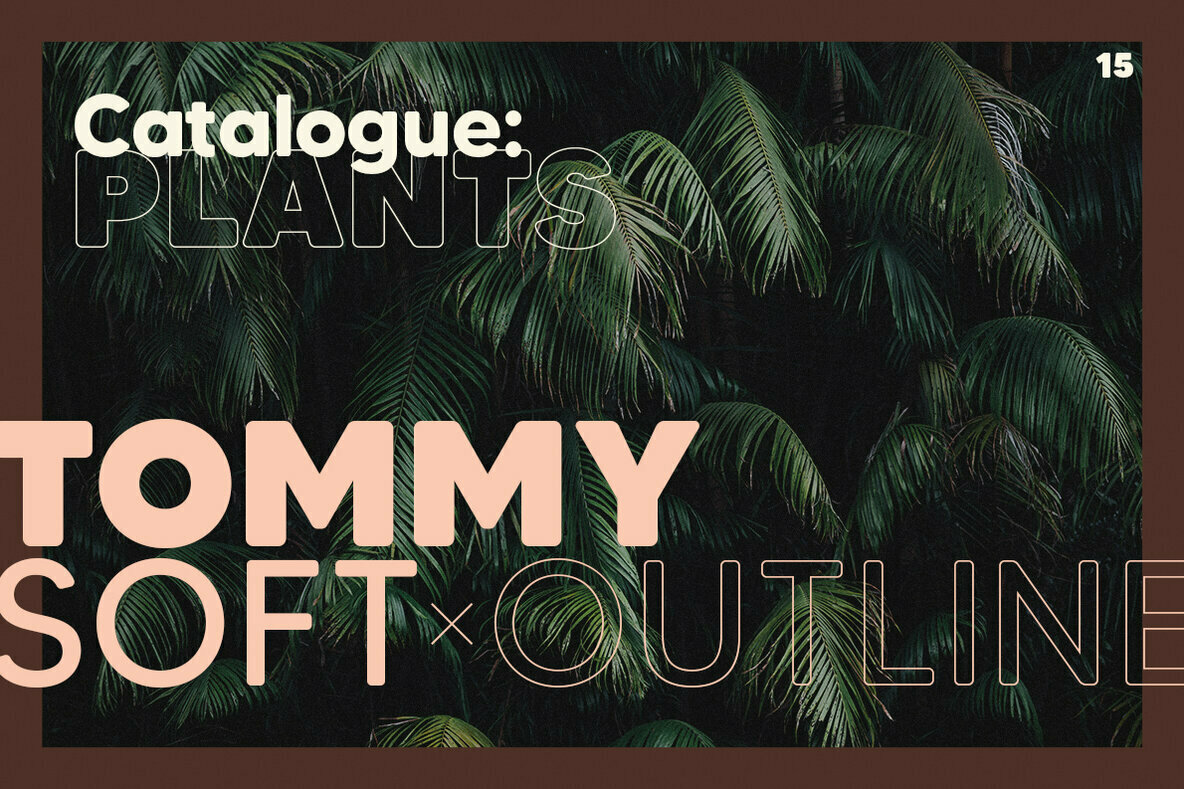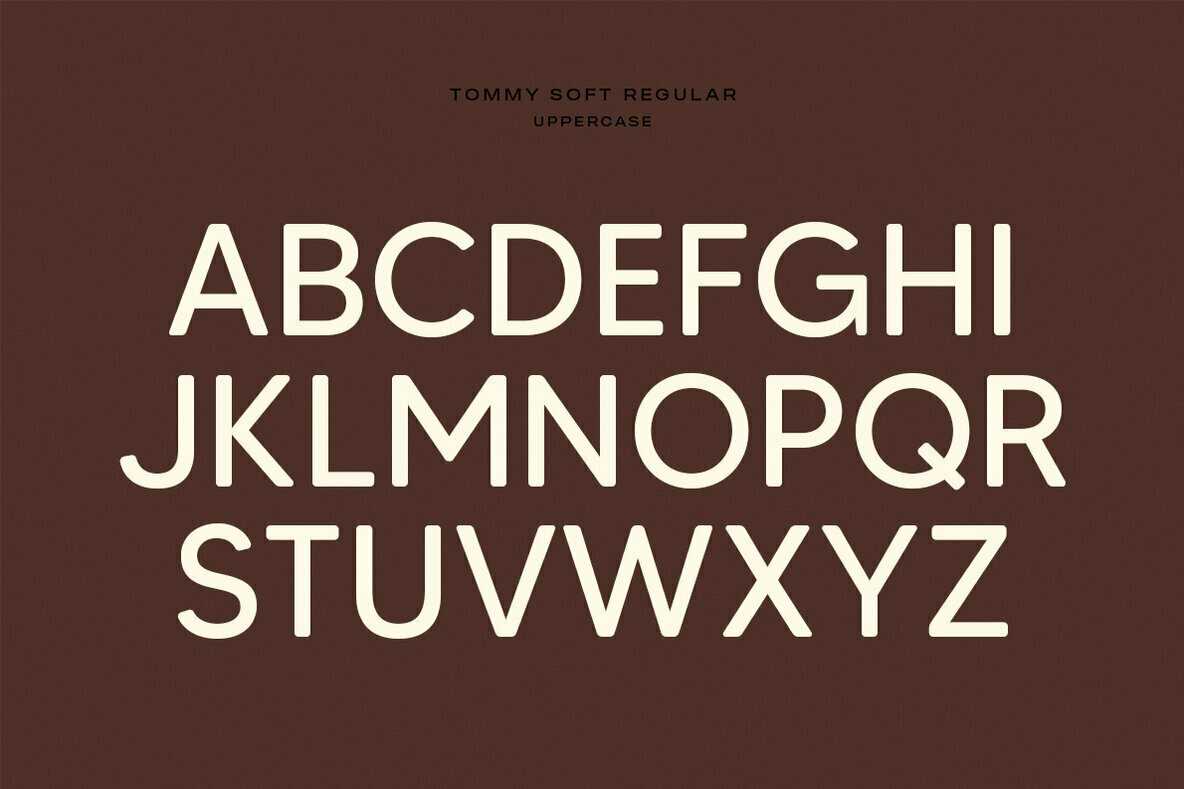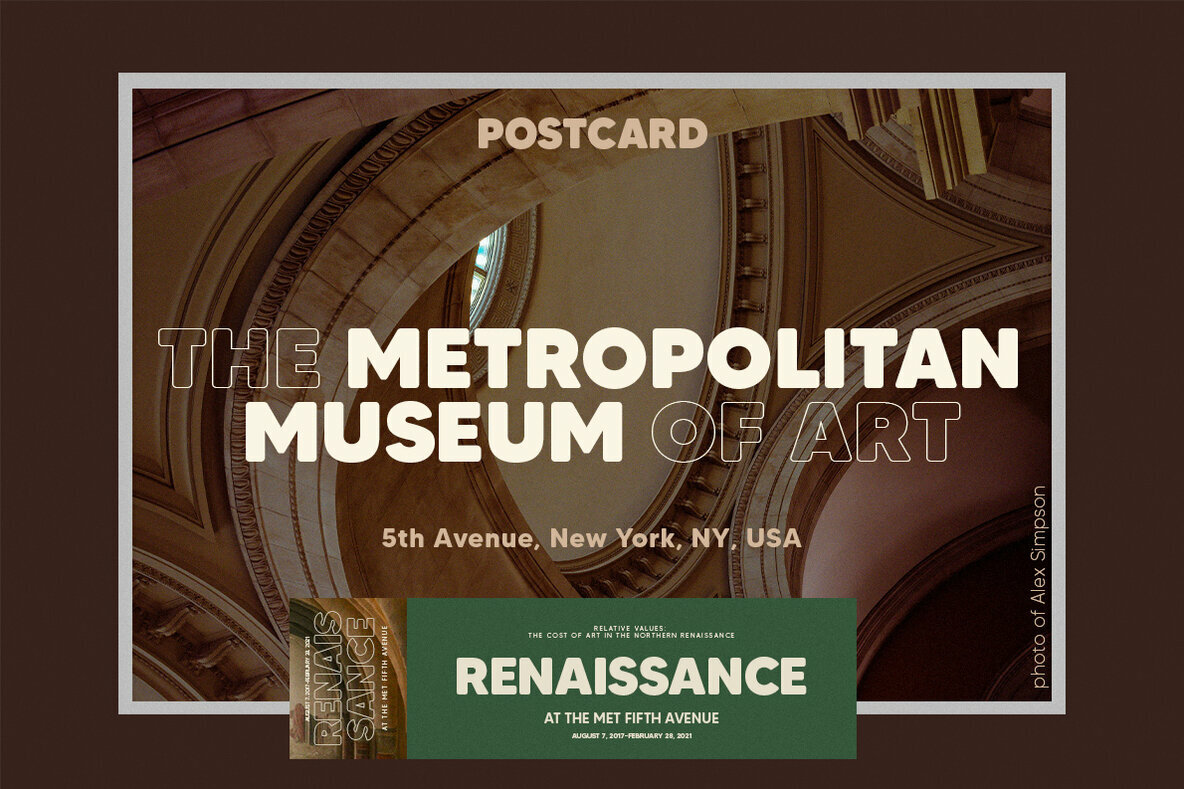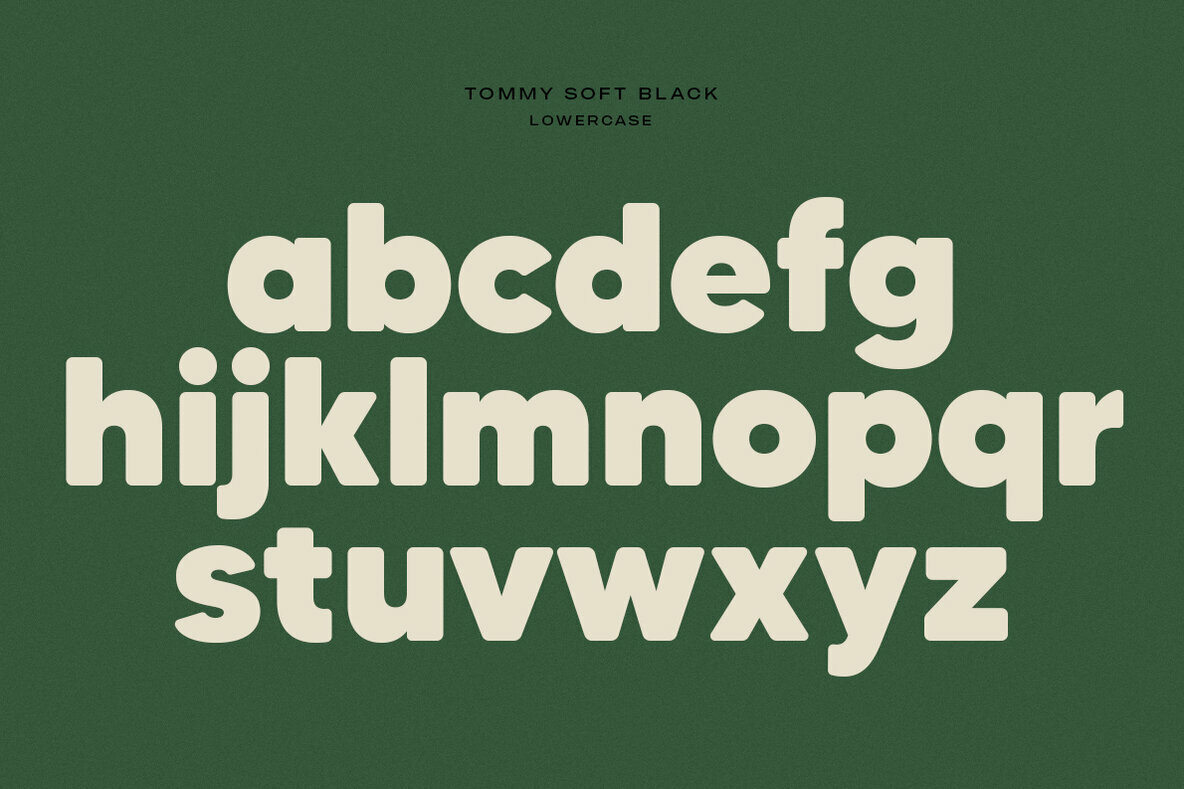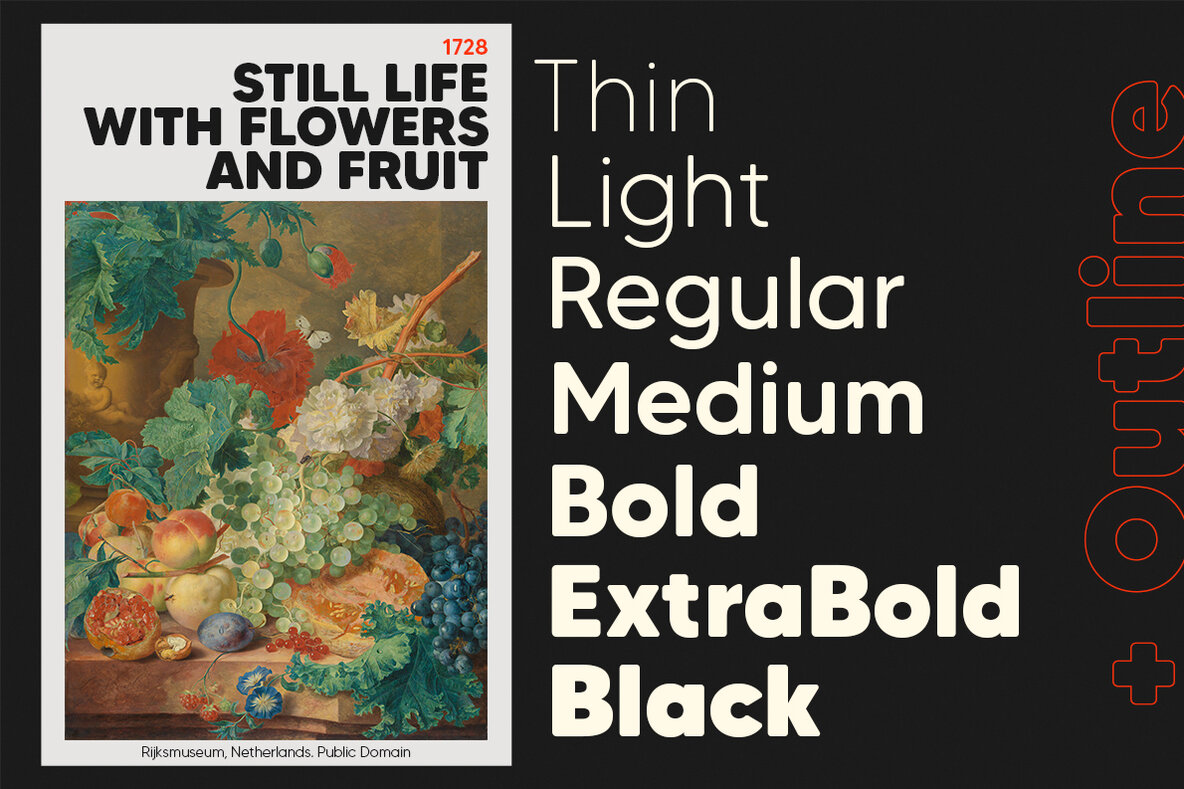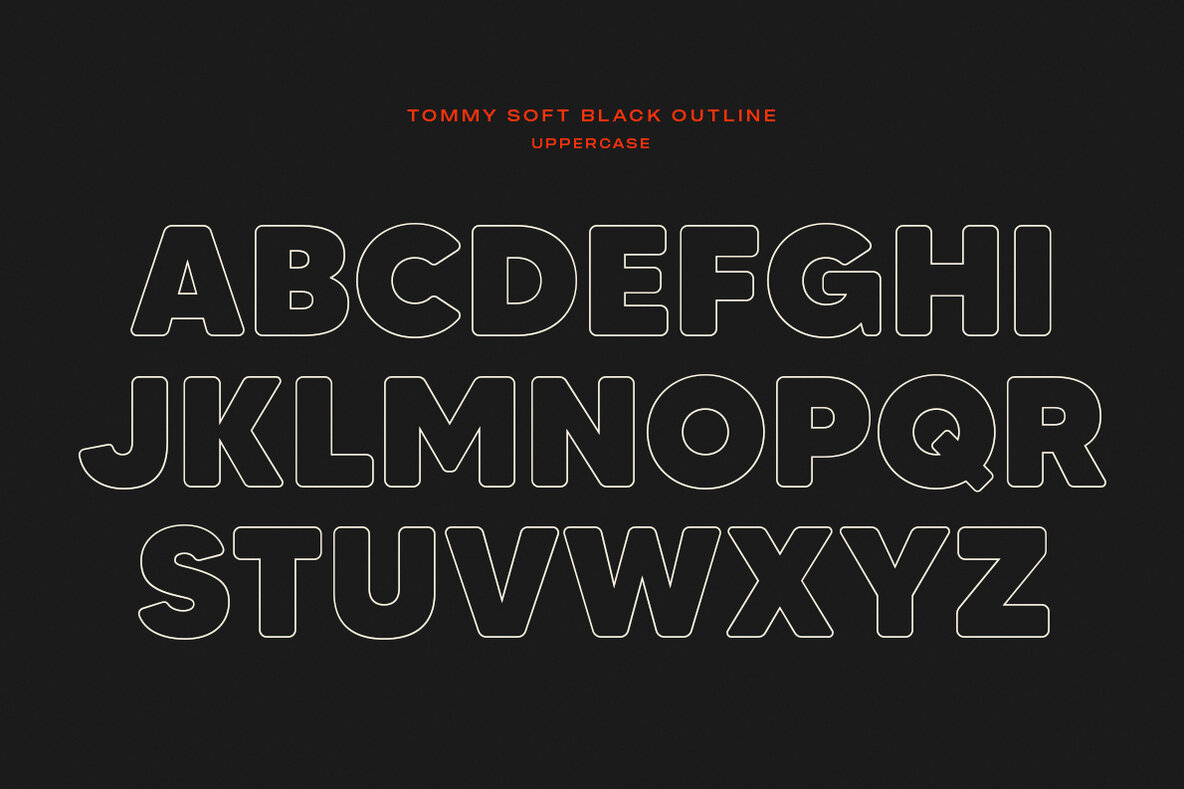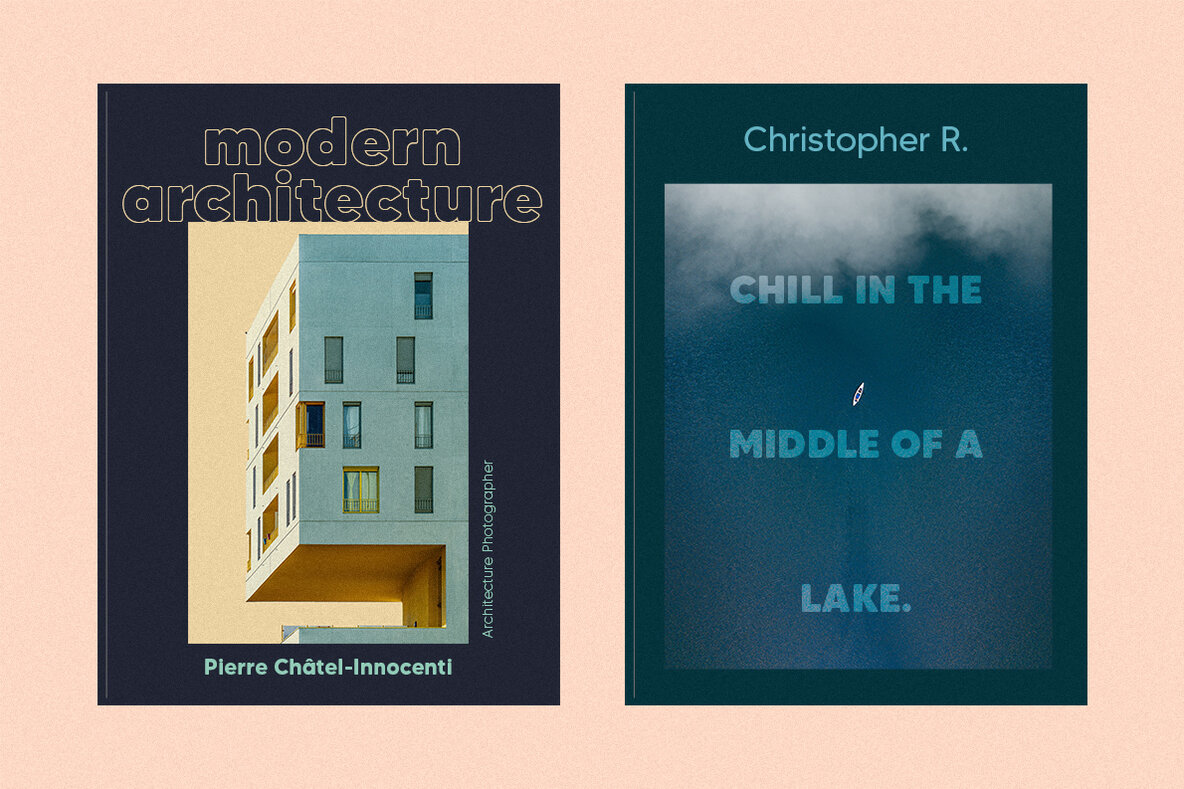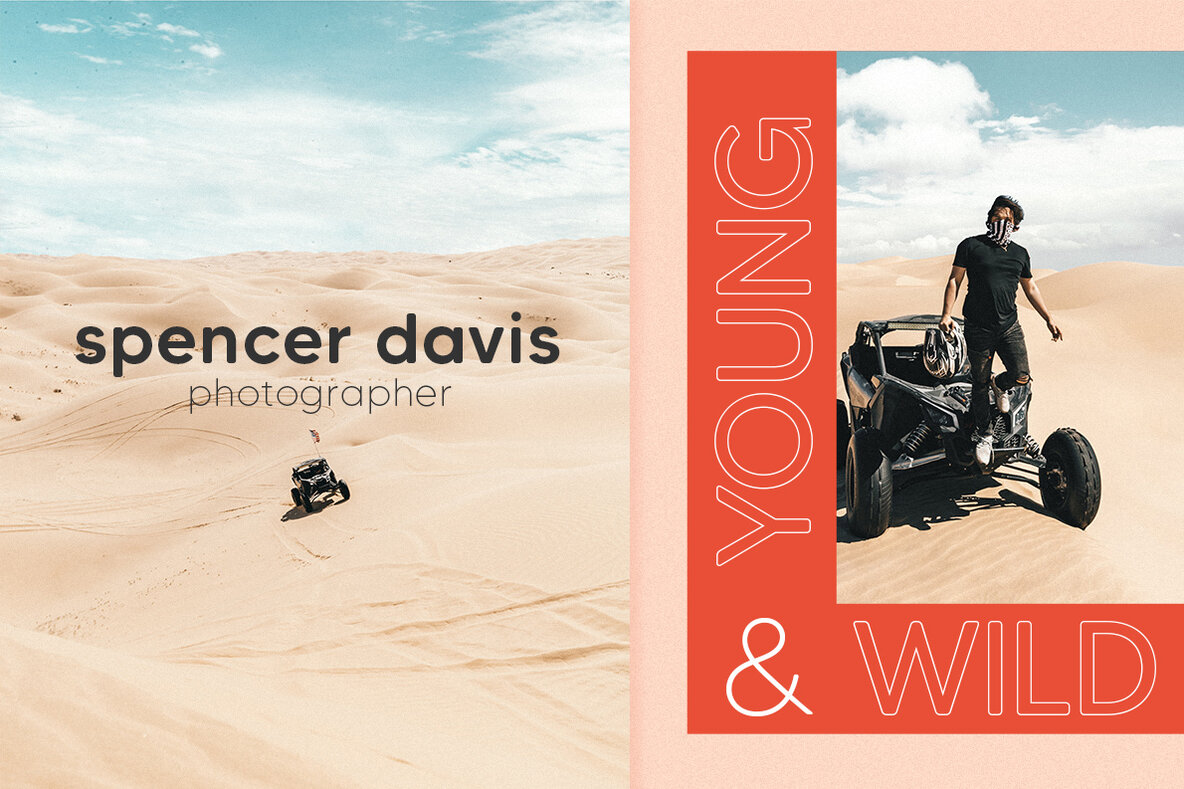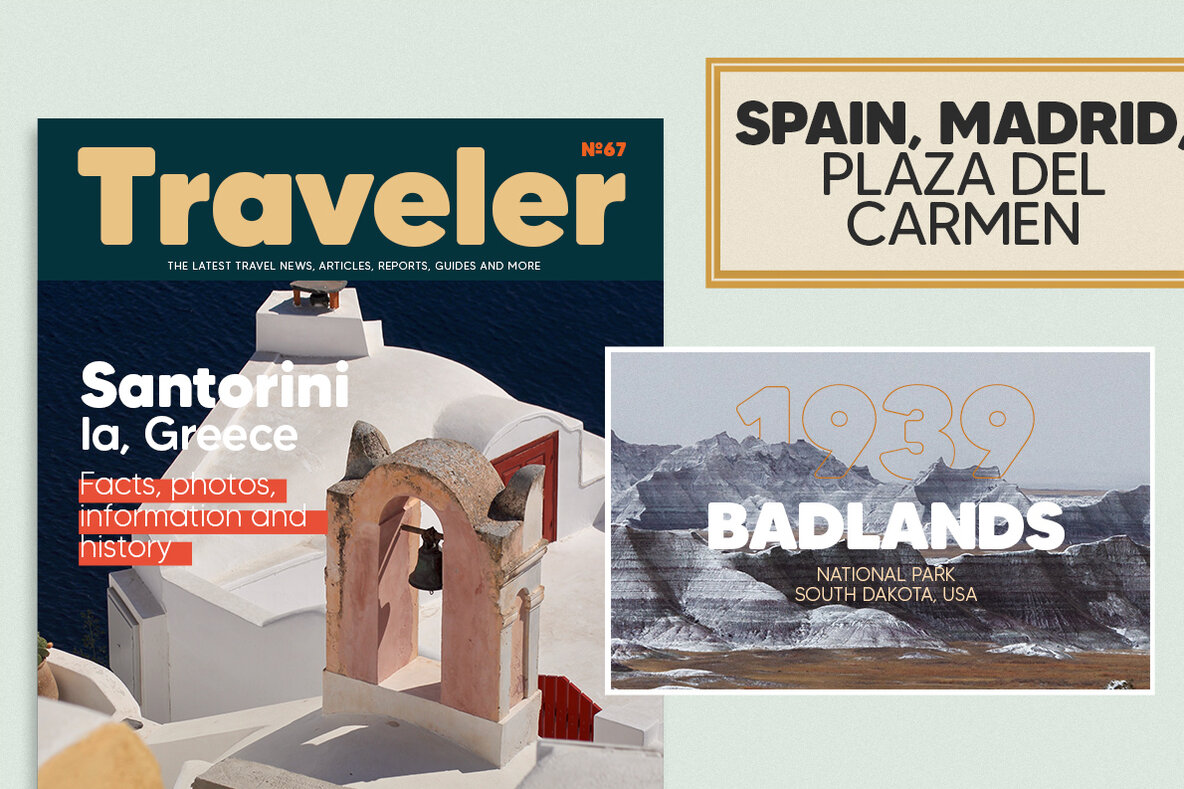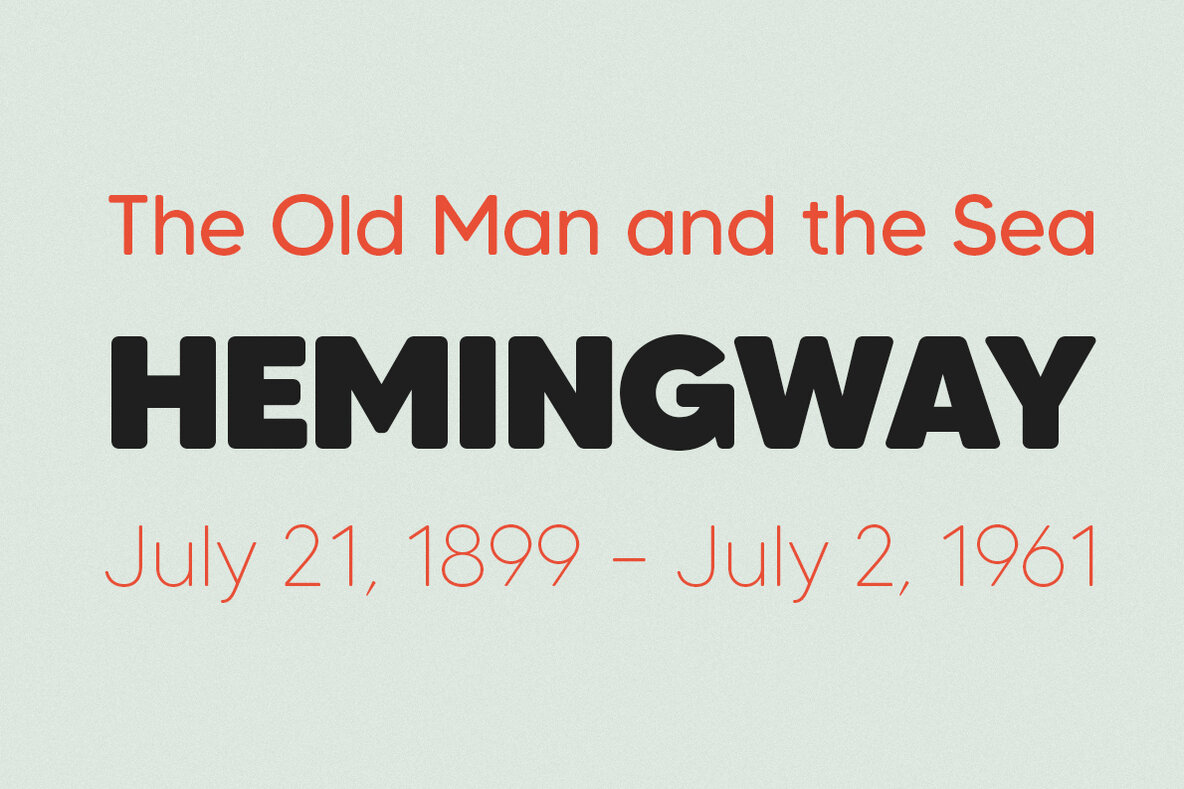
MADE Tommy Soft 1
In the world of typography, MadeType stands as a beacon of innovation and timeless elegance. Specializing in the crafting of serif and sans-serif typefaces, MadeType seamlessly fuses fashion-forward sensibilities with a retro flair. With a portfolio that ranges from sleek modern lines to curvaceous vintage str...